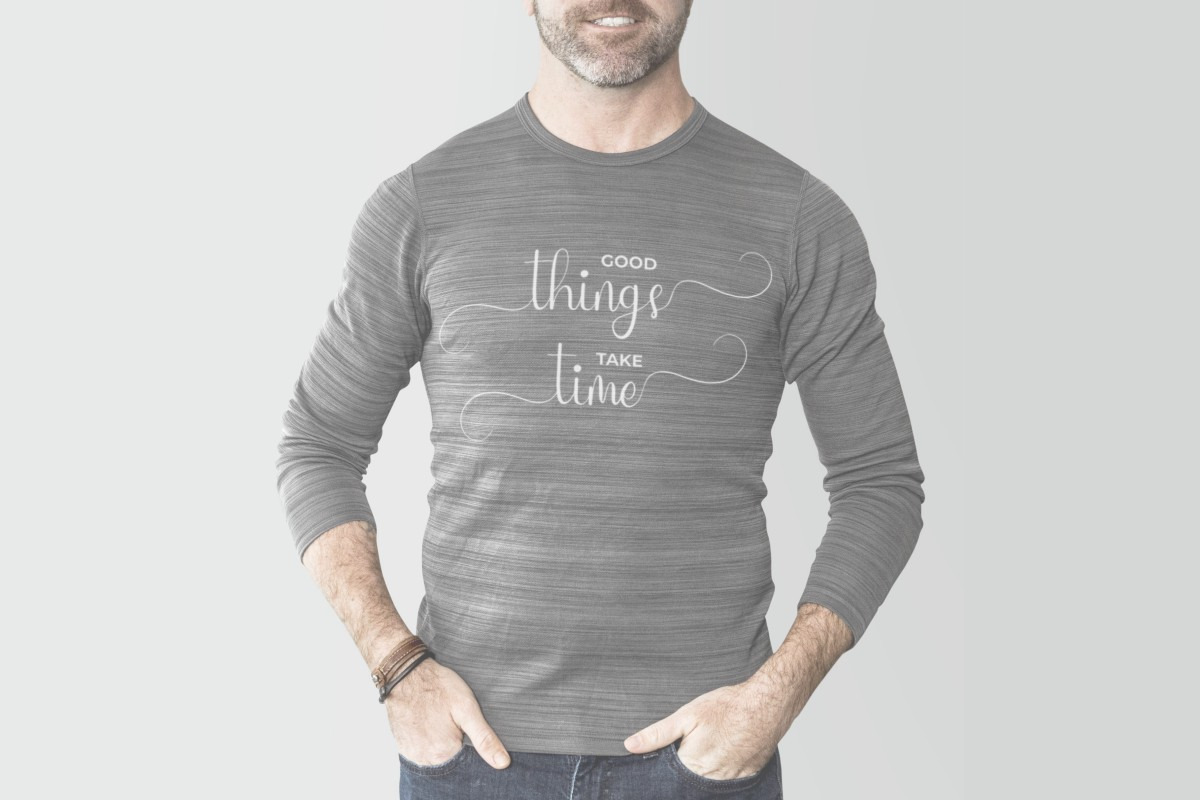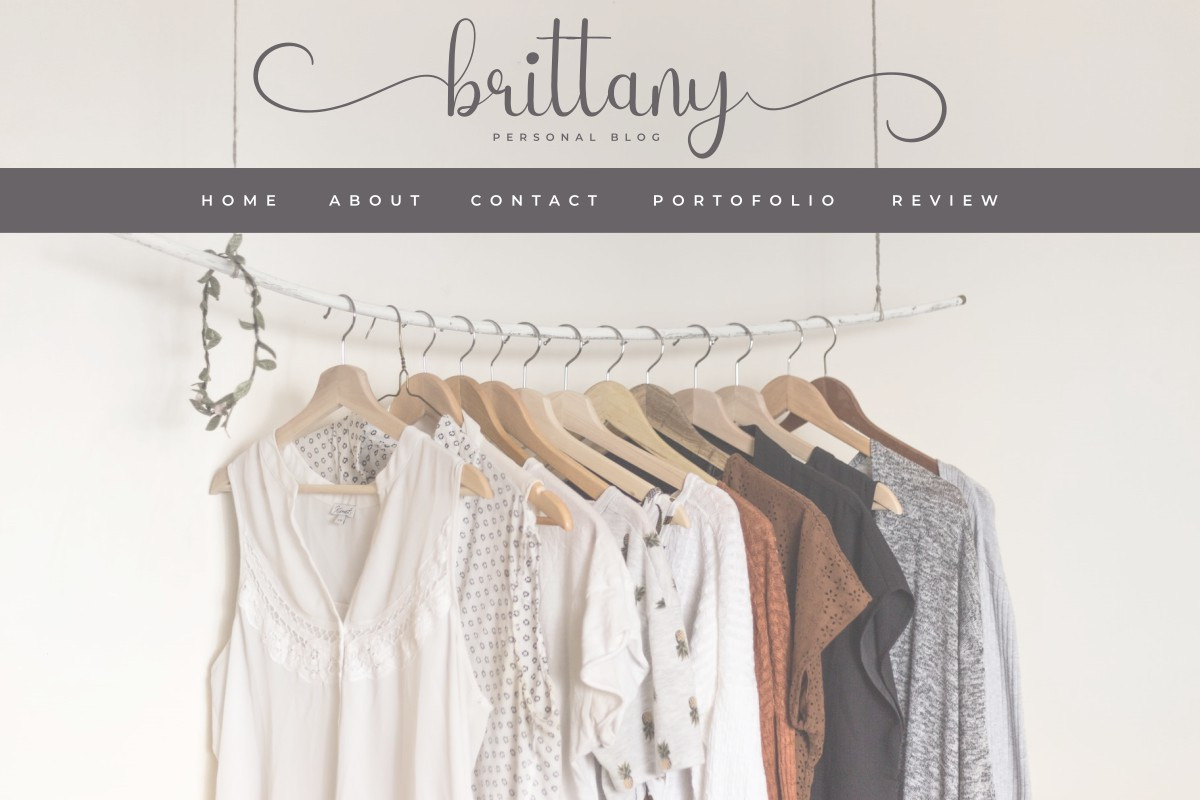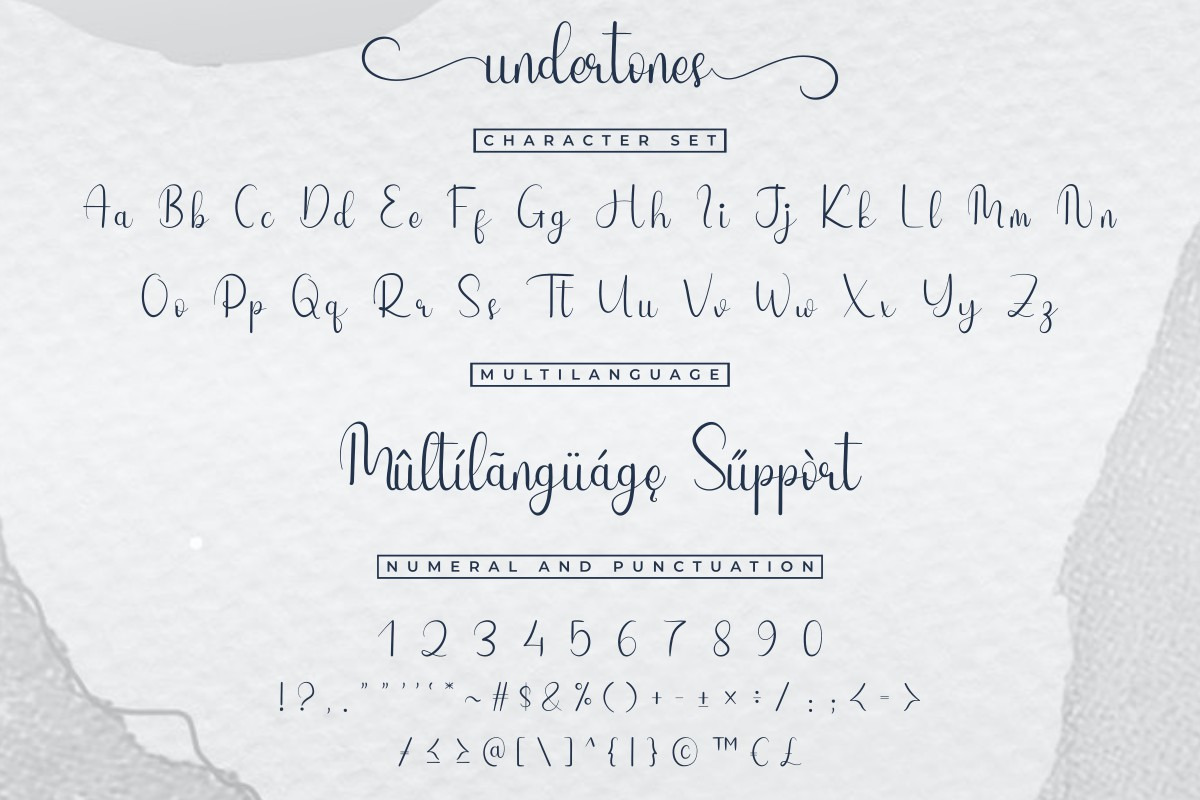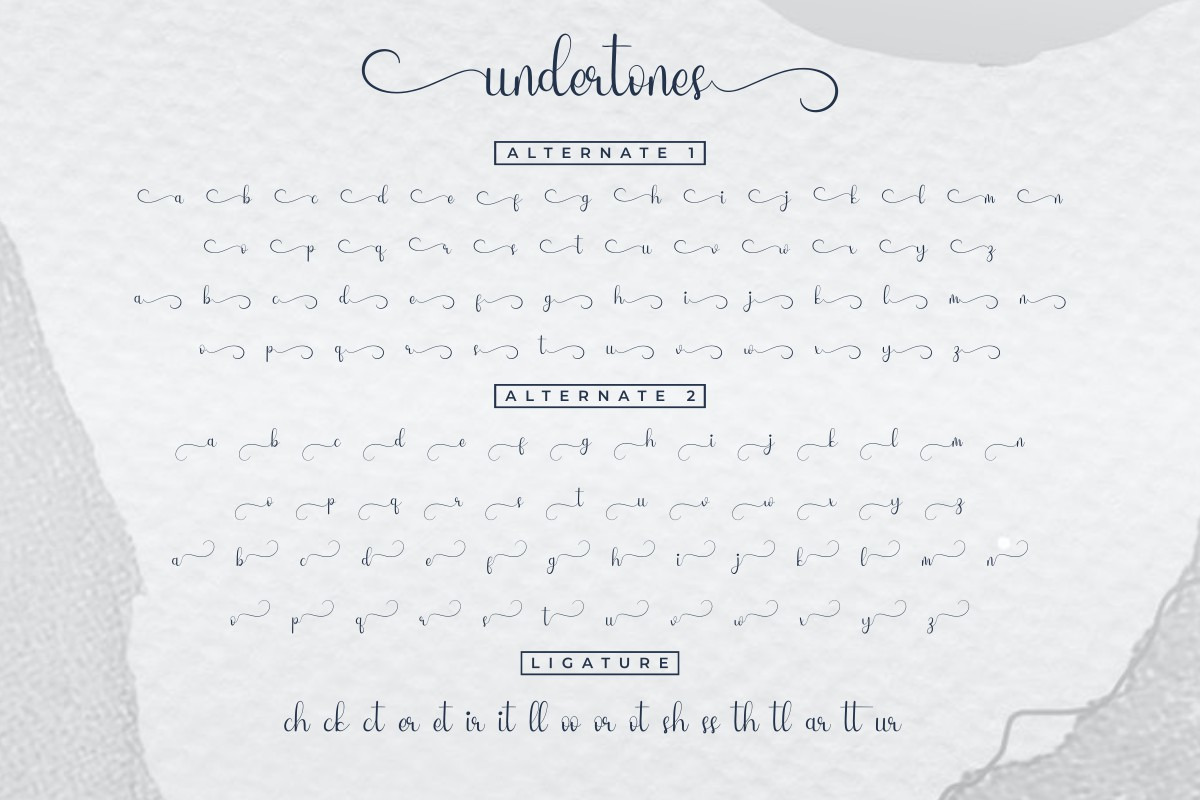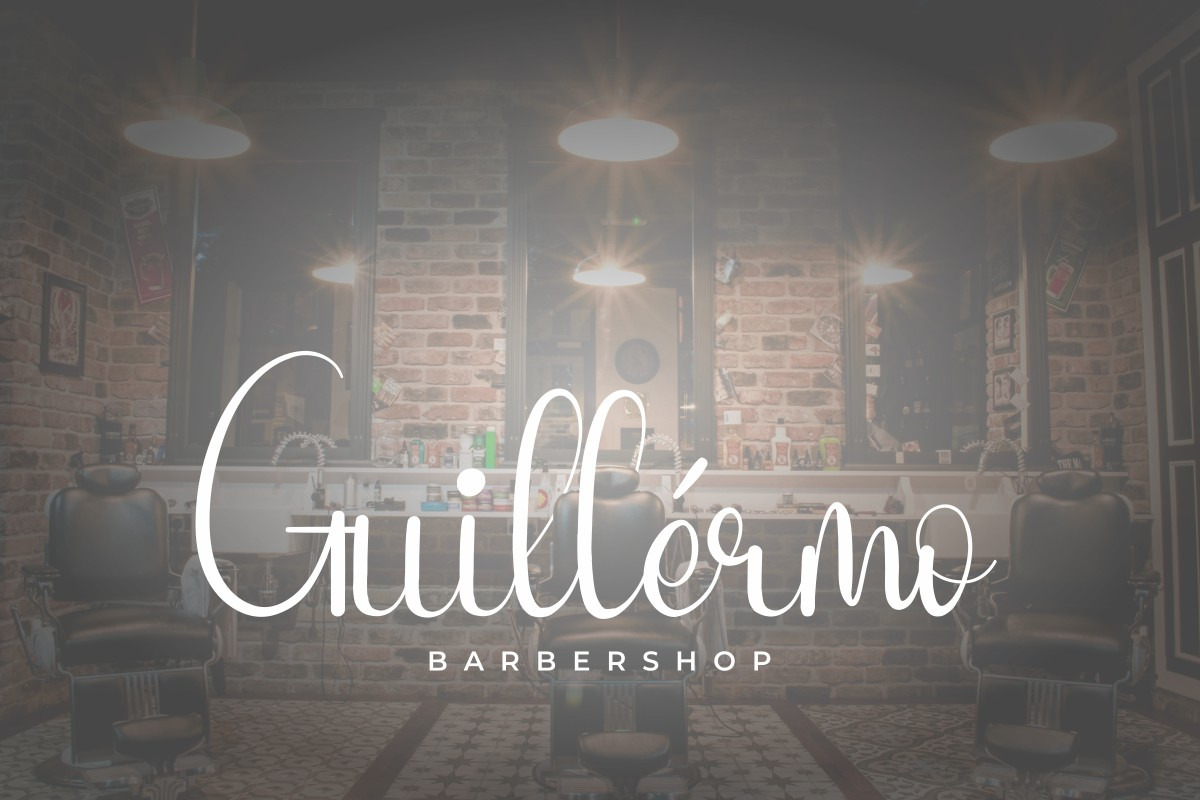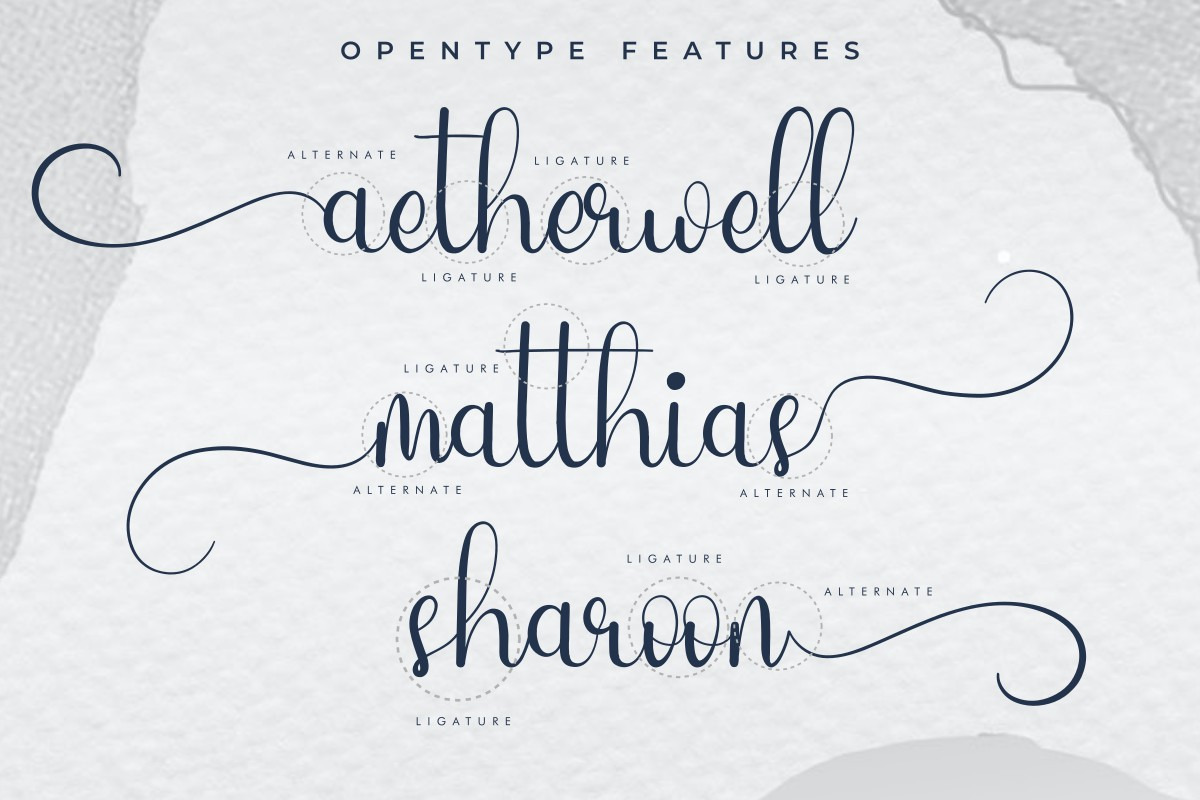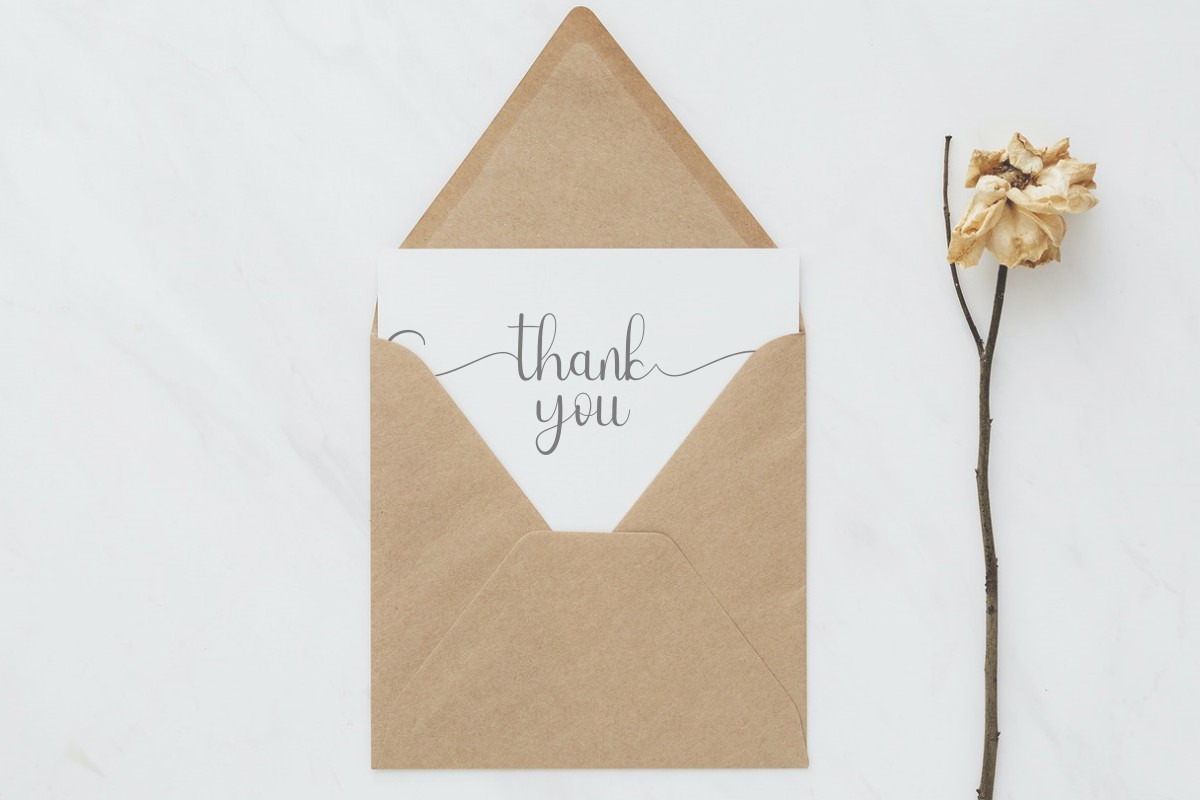
Undertones Calligraphy Font
Undertones is a Calligraphy script font. The styles of this font are feminine, beautiful, luxury, glamour, modern and sophisticated brush pen.